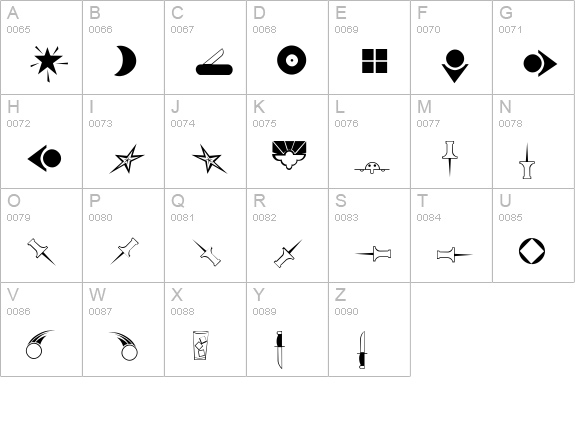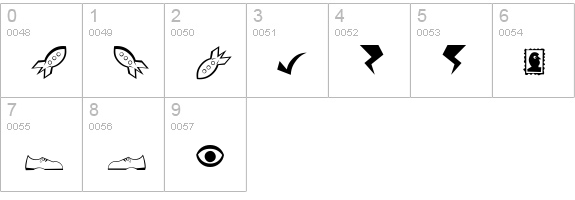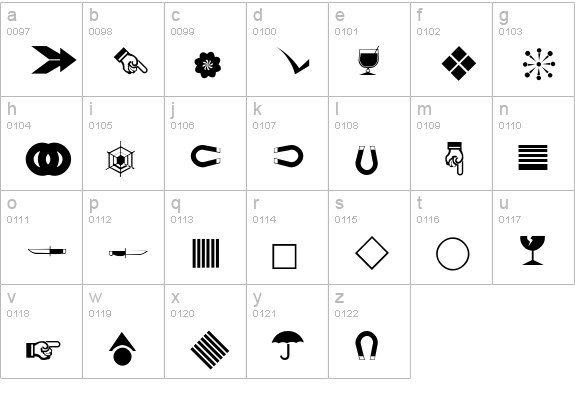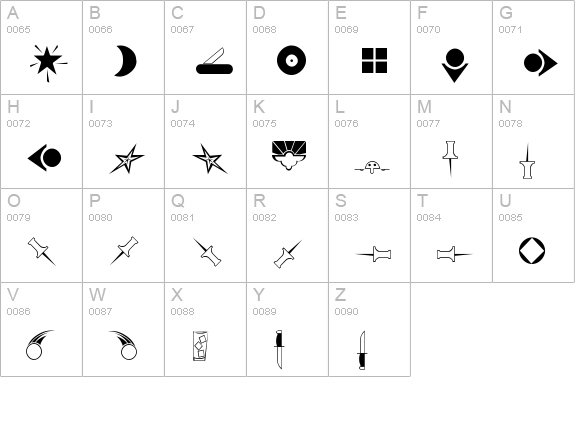
RSBillsDingbats Font Details
RSBillsDingbats is a whimsical and playful font that adds a touch of fun and creativity to any design project. This unique typeface features a delightful collection of dingbat characters that can be used to enhance logos, posters, invitations, and more. With its charming and distinctive style, RSBillsDingbats is sure to make your designs stand out. The best part? RSBillsDingbats is completely free to download at FontsMarket.com. That's right, you can add this delightful font to your collection at no cost and start using it in your projects right away. Don't miss out on the opportunity to bring a touch of whimsy to your designs with RSBillsDingbats. Download it today and let your creativity soar!